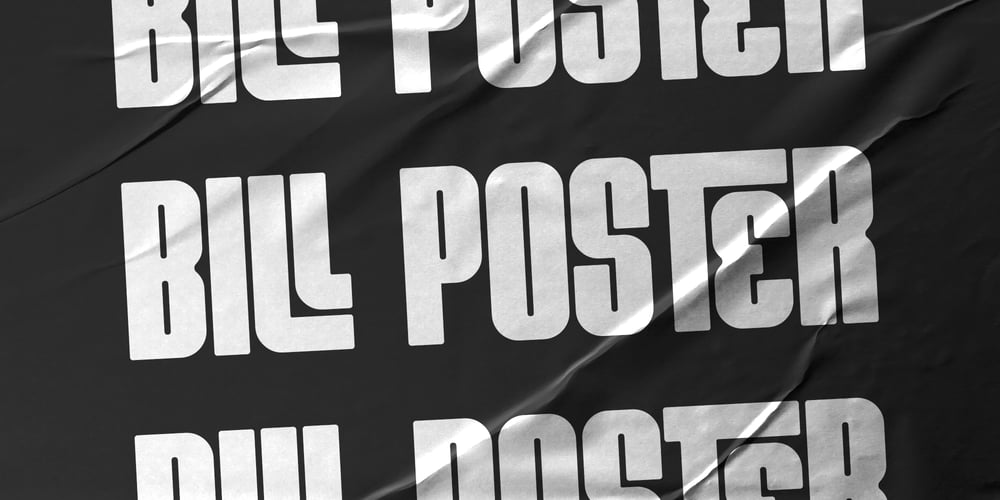
Bill Poster
Bill Poster font
Bill Poster Font Family was designed by Stanislav Hatznik and published by Smartfont. Bill Poster contains 1 styles and family package options. A powerful, energetic and exciting condensed typeface. It brings charming curves and satisfying patterns to traditional condensed fonts. It’s designed for impact, without sacrificing style or legibility. It looks especially stunning in large scale, although it still carries a punch at smaller point sizes. It’s born to be!Ideal for magazine, posters, headlines and pull quotes.